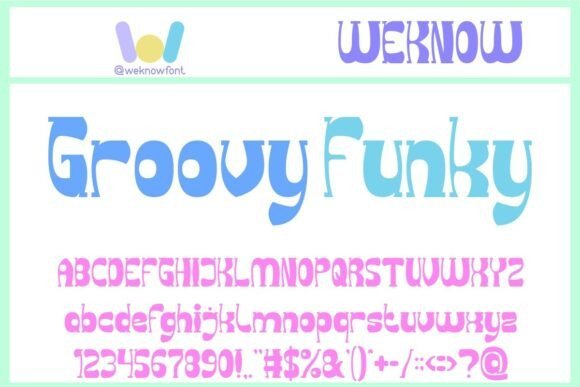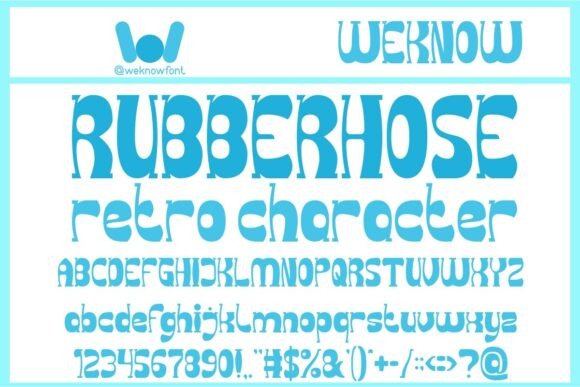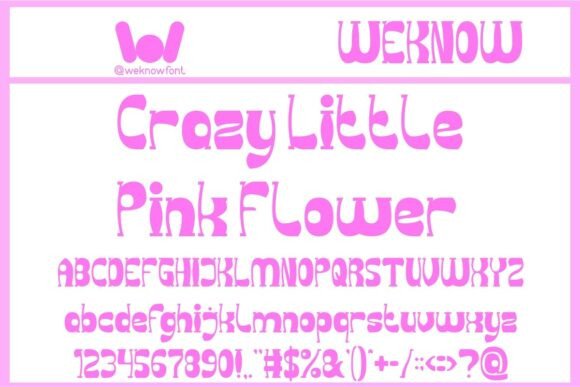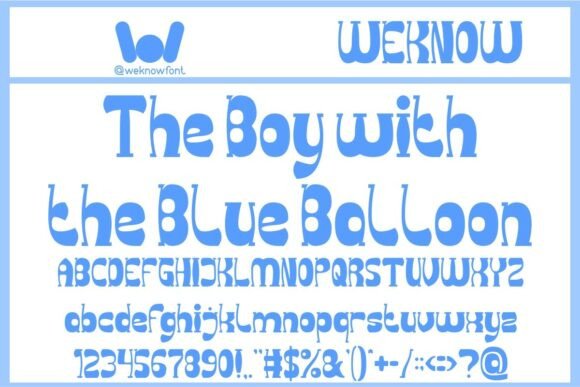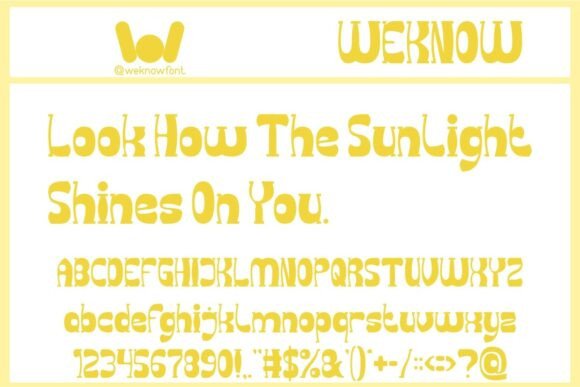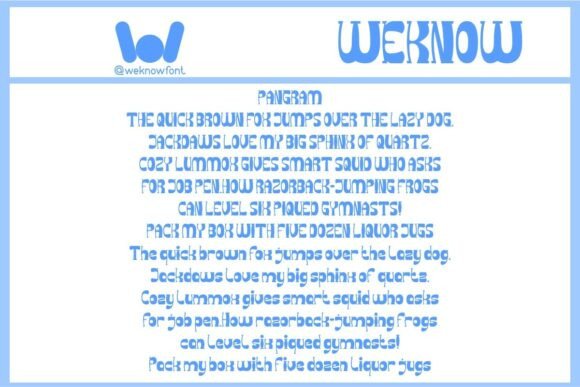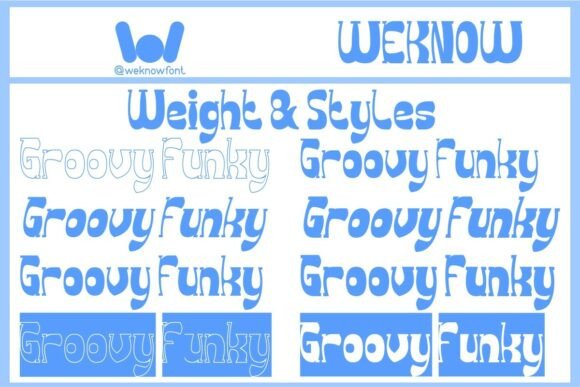
Have you ever stared at a blank page, waiting for inspiration to strike? That’s exactly what happened to us when we stumbled upon the Groovy Funky Font. Its quirky charm and playful vibe immediately sparked a wave of creative ideas, and we knew we had to share it with the world.
Designed to make a statement, the Groovy Funky Font is a supremely versatile display font that’s perfect for adding a touch of whimsy to your next project. Whether you’re a seasoned designer or just starting out, this font is an absolute must-have for anyone looking to add some personality to their work. Its unique blend of style and sophistication makes it an ideal choice for logos, headlines, and even entire brand identities.
Groovy Funky Font Key Features
- Character Set: This font features a comprehensive character set, including uppercase and lowercase letters, numerals, punctuation marks, and special characters, making it suitable for various types of content.
- Unique Characteristics: Groovy Funky Font is known for its distinctive, funky style, with bold lines, rounded shapes, and a playful feel that adds a touch of whimsy to any text.
Groovy Funky Font Review
Overall, I’m impressed with the Groovy Funky Font, but it’s not without its quirks. Let’s start with what works well:
- ✨ Unique style: This font truly stands out from the crowd. Its funky aesthetic is perfect for anything that needs a bit of attitude.
- ✨ Versatile: Groovy Funky Font is great for headings, titles, and even body text. It’s a great choice for designers looking for a bold, eye-catching font.
- ✨ Easy to read: Despite its bold appearance, the font is surprisingly easy to read, especially at larger sizes.
- ⚠️ Limited font sizes: At smaller sizes, the font can become difficult to read. This might be a problem for designers who need to use the font in smaller contexts.
- ⚠️ Limited language support: The font doesn’t support many languages, which might be a problem for designers working on multilingual projects.
Overall, I’d recommend the Groovy Funky Font for designers who need a bold, eye-catching font for headings or titles. Just be aware of its limitations, and use it wisely.
Tips for Getting the Most Out of Groovy Funky Font
Use Groovy Funky Font to add a touch of fun and personality to your designs. Pair it with bold colors and playful graphics for a truly eye-catching effect.
Experiment with different font sizes and styles to create visual interest and hierarchy in your design.
Groovy Funky Font is perfect for:
Designing party invitations and event materials
Creating social media graphics and advertisements
Adding a touch of personality to business cards and letterheads
Alternative Fonts for Groovy Funky Font
Font 1: Great Vibes
Great Vibes is a handwritten script font that is ideal for creating a fun and carefree atmosphere. It’s perfect for titles, headings, and quotes in fashion, lifestyle, and entertainment projects. Great Vibes is similar to Groovy Funky Font in its playful and energetic feel, but it has a more refined and elegant look.
Font 2: Alex Brush
Alex Brush is a calligraphic script font that is great for creating a sophisticated and elegant look. It’s suitable for titles, headings, and body text in luxury, fashion, and lifestyle projects. Compared to Groovy Funky Font, Alex Brush has a more refined and polished look, making it ideal for high-end projects.